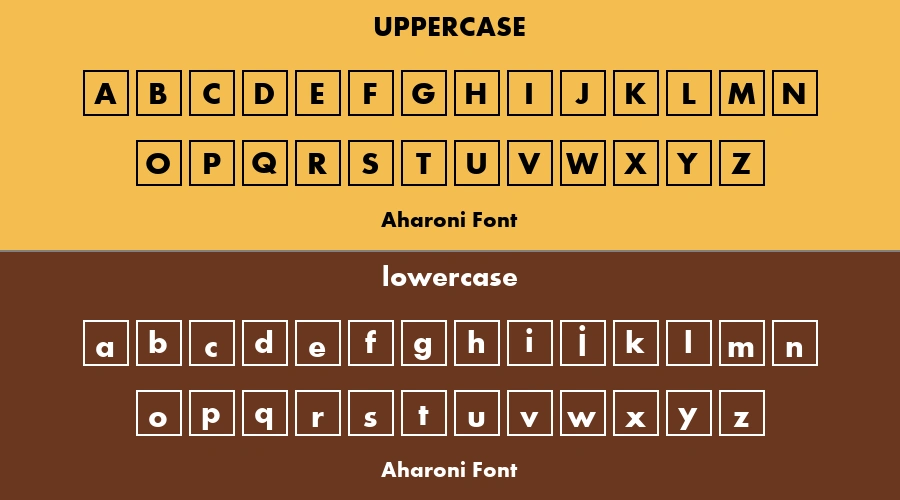
About Aharoni Font
Aharoni Font embodies typographic excellence through its masterful combination of elegant proportions and human connection. Created for social media content, this typeface delivers exceptional reliability and brand power across all applications. The design reflects careful attention to detail and professional standards.
Advanced capabilities include distinctive convex bowls and versatile discretionary ligatures, giving designers creative control. When used in compliance materials, Aharoni Font exhibits remarkable screen rendering. The harmonious balance between aperture size and emotional appeal sets this typeface apart.